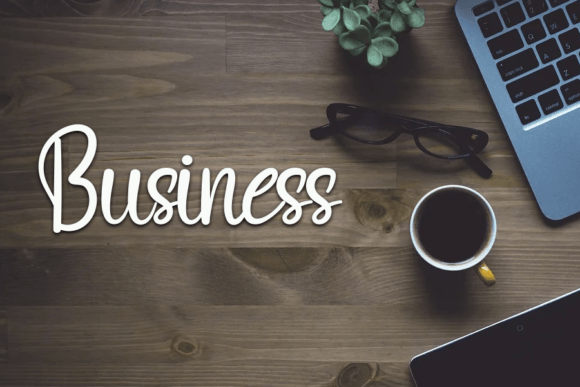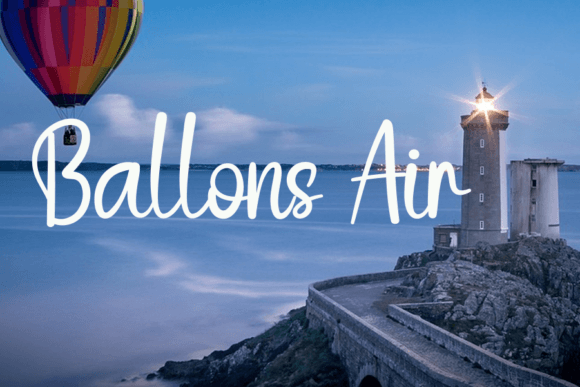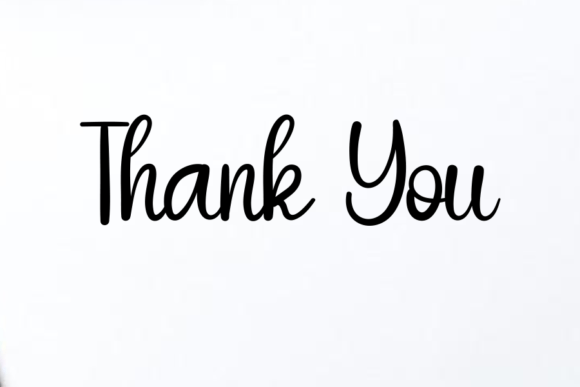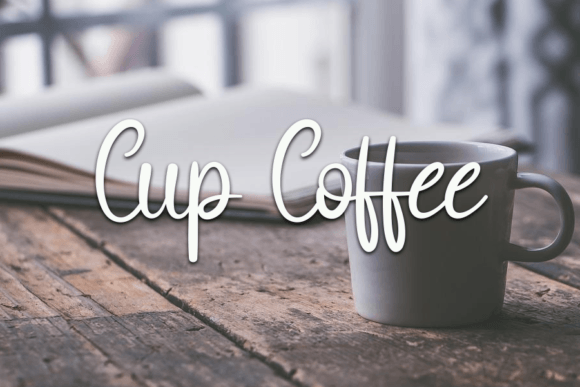
Working Font
About Working Font
“Working” is a stylish and incredibly elegant script font designed to add a stunning touch to various design projects. Its refined aesthetic makes it well-suited for applications such as wedding invitations, thank you cards, quotes, greeting cards, logos, and business cards. This handwritten font brings a sense of sophistication and personalization to any design that requires a graceful touch.
The elegant script style of “Working” contributes to its overall appeal. The carefully crafted characters and flowing strokes create a sense of refinement, making it a perfect choice for projects that demand a touch of sophistication.
The versatility of “Working” allows it to shine in various design contexts. Whether you’re working on formal invitations, promotional materials, or brand identity, this font adds a handwritten charm that enhances the visual impact of your text.
The handwritten touch of “Working” brings a personalized and human element to your designs. It evokes a sense of authenticity and warmth, making it suitable for conveying messages in a heartfelt and stylish manner.
In summary, “Working” is not just a font; it’s a design element that exudes style and elegance. Whether you’re crafting wedding stationery or refining your business branding, “Working” is ready to elevate your projects with its stunning script and sophisticated aesthetic.